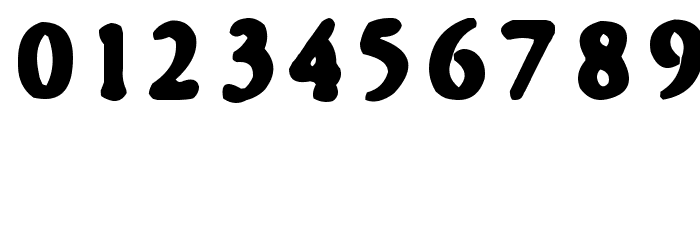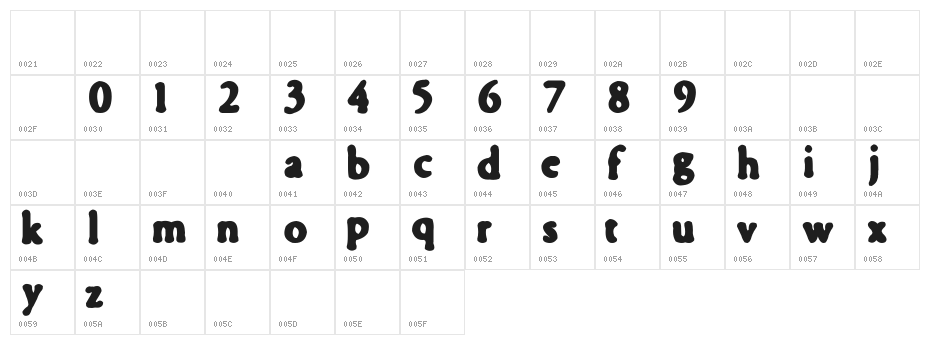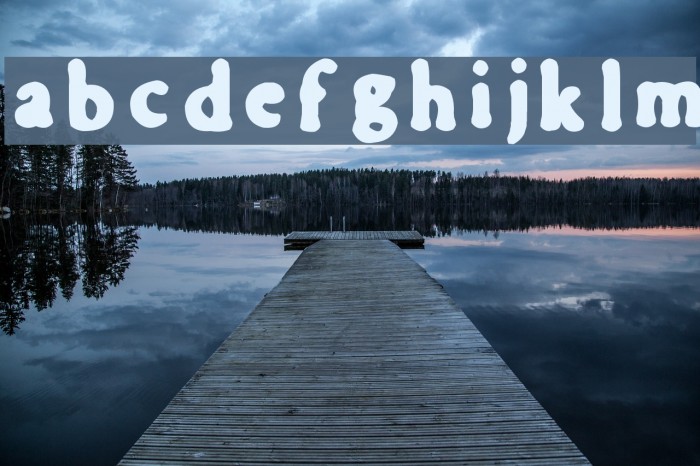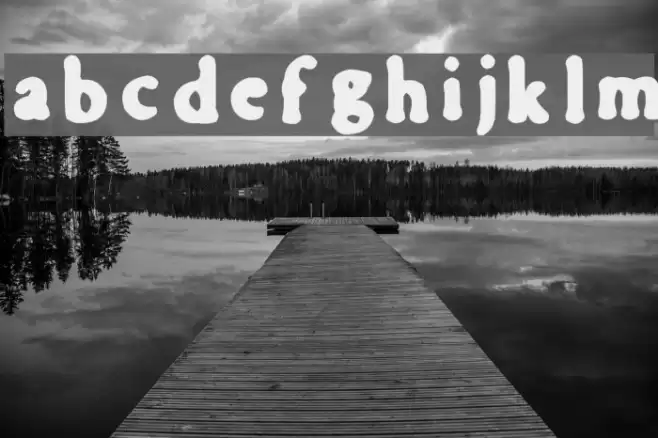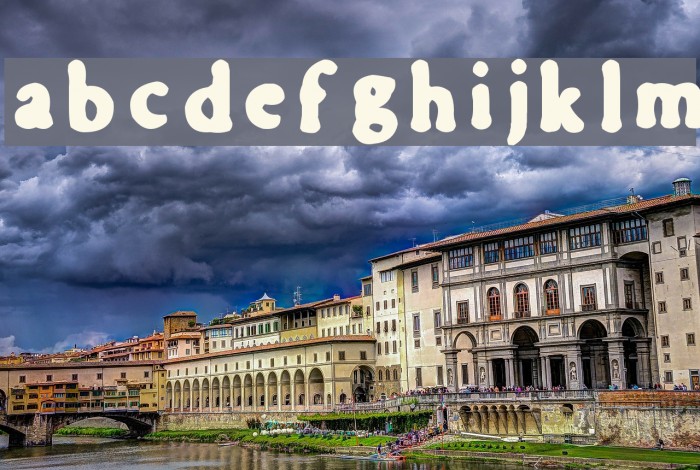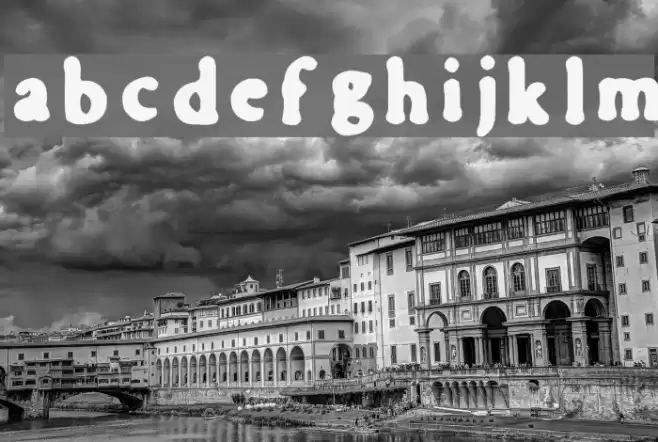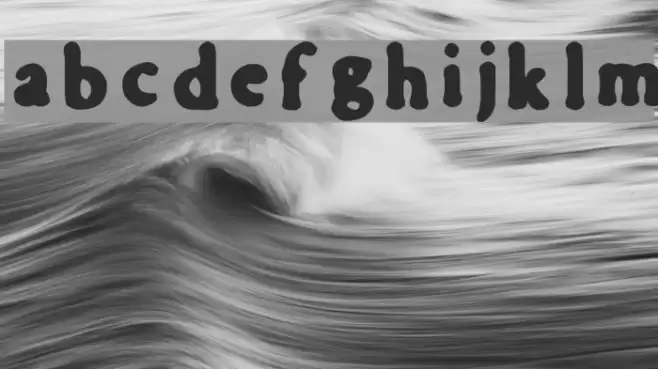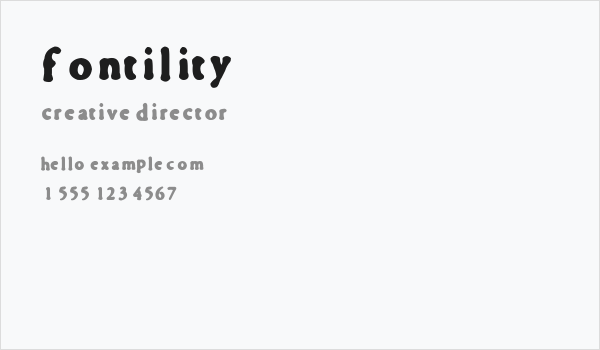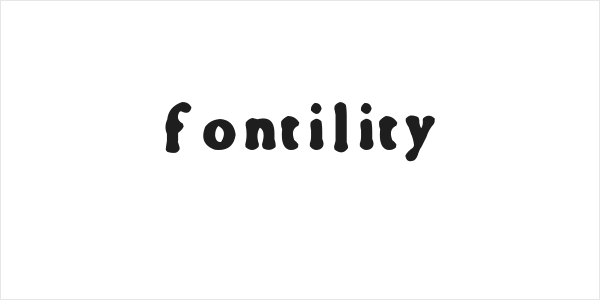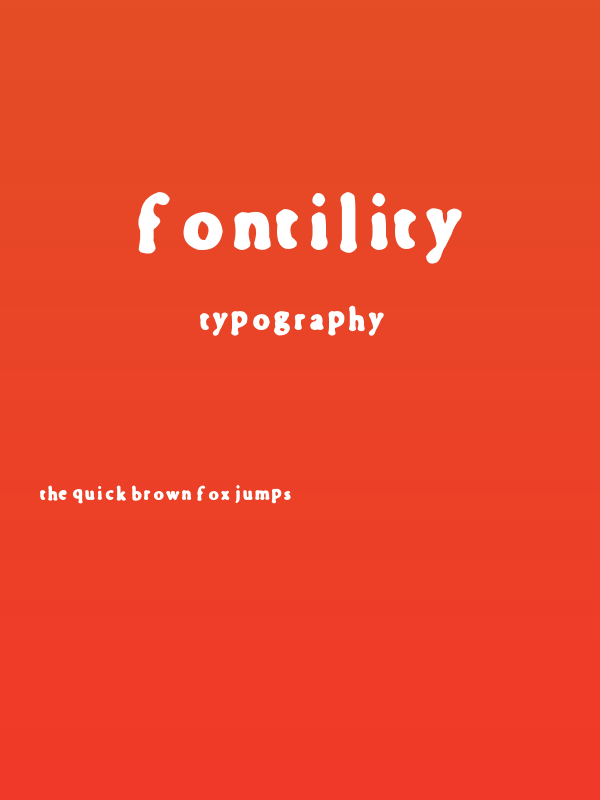
fontility Font
fontility Description
This playful and bold font features rounded, thick strokes that give it a friendly and approachable appearance. The characters are slightly irregular, adding a whimsical touch to the overall design. The font's boldness ensures high readability, making it suitable for various creative projects. Its unique style is characterized by a consistent weight throughout each letter, with smooth curves and a slightly informal feel. The numbers and special characters maintain the same playful aesthetic, ensuring a cohesive look across all text elements.
| Proposed Projects | Ideal for children's books, playful branding, casual invitations, and creative posters. |